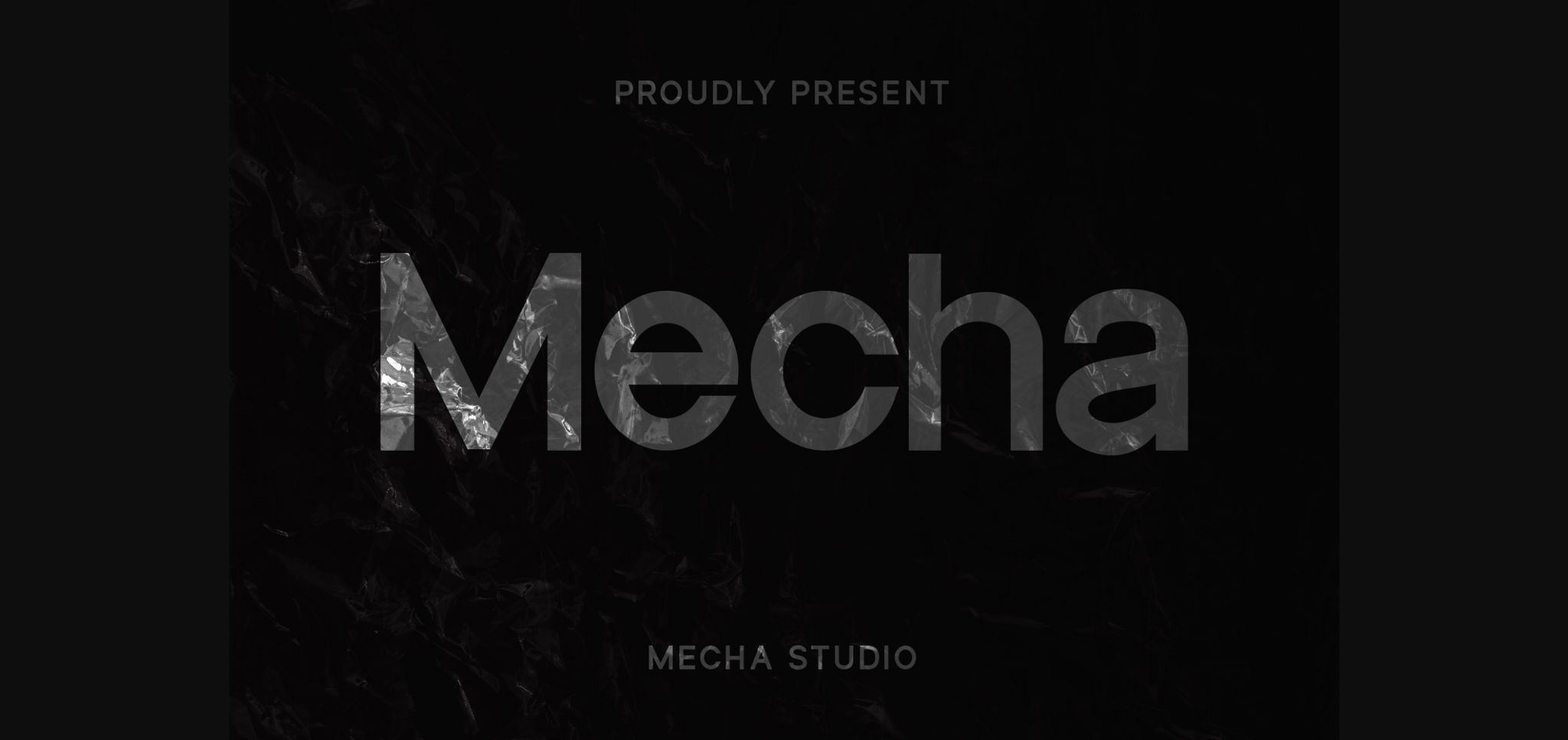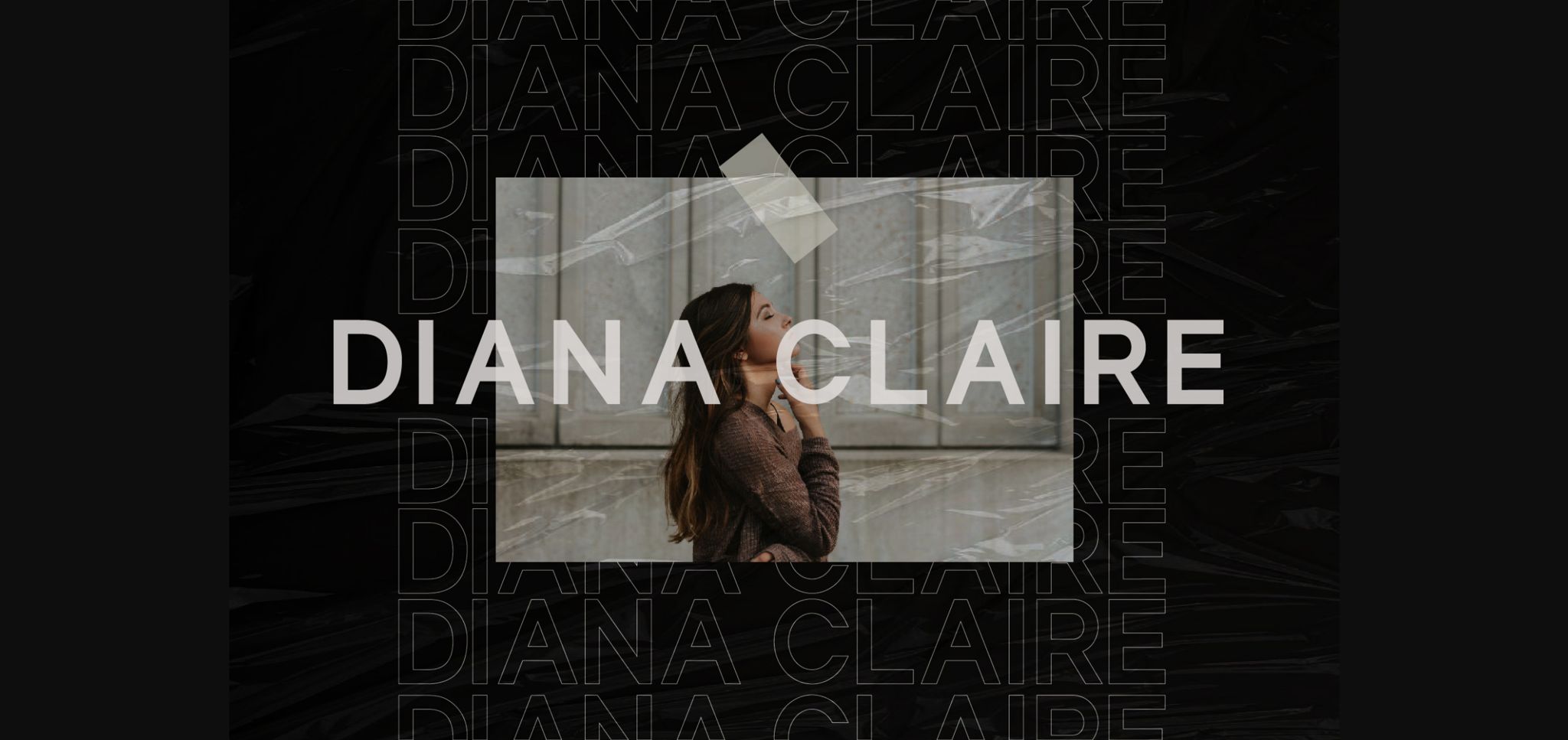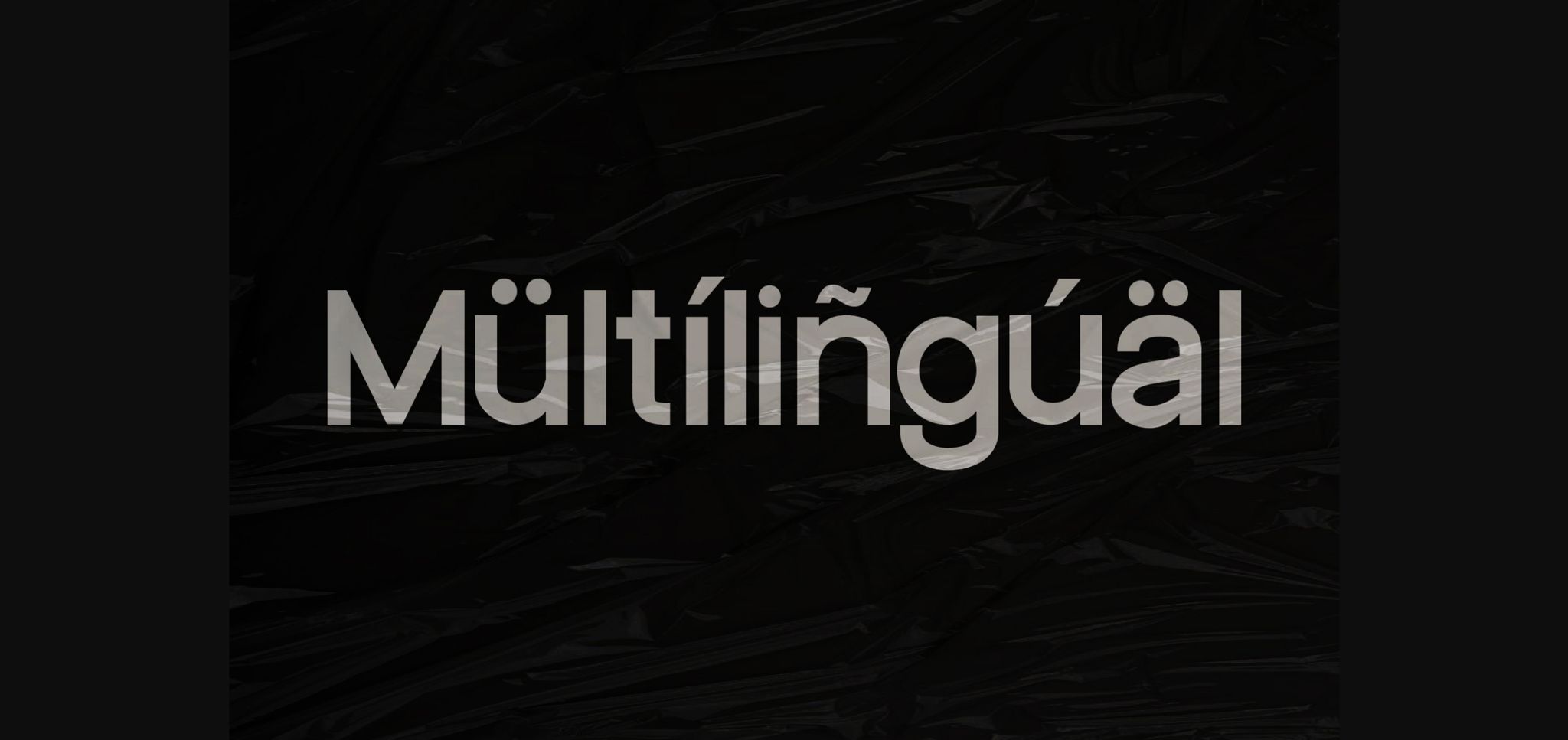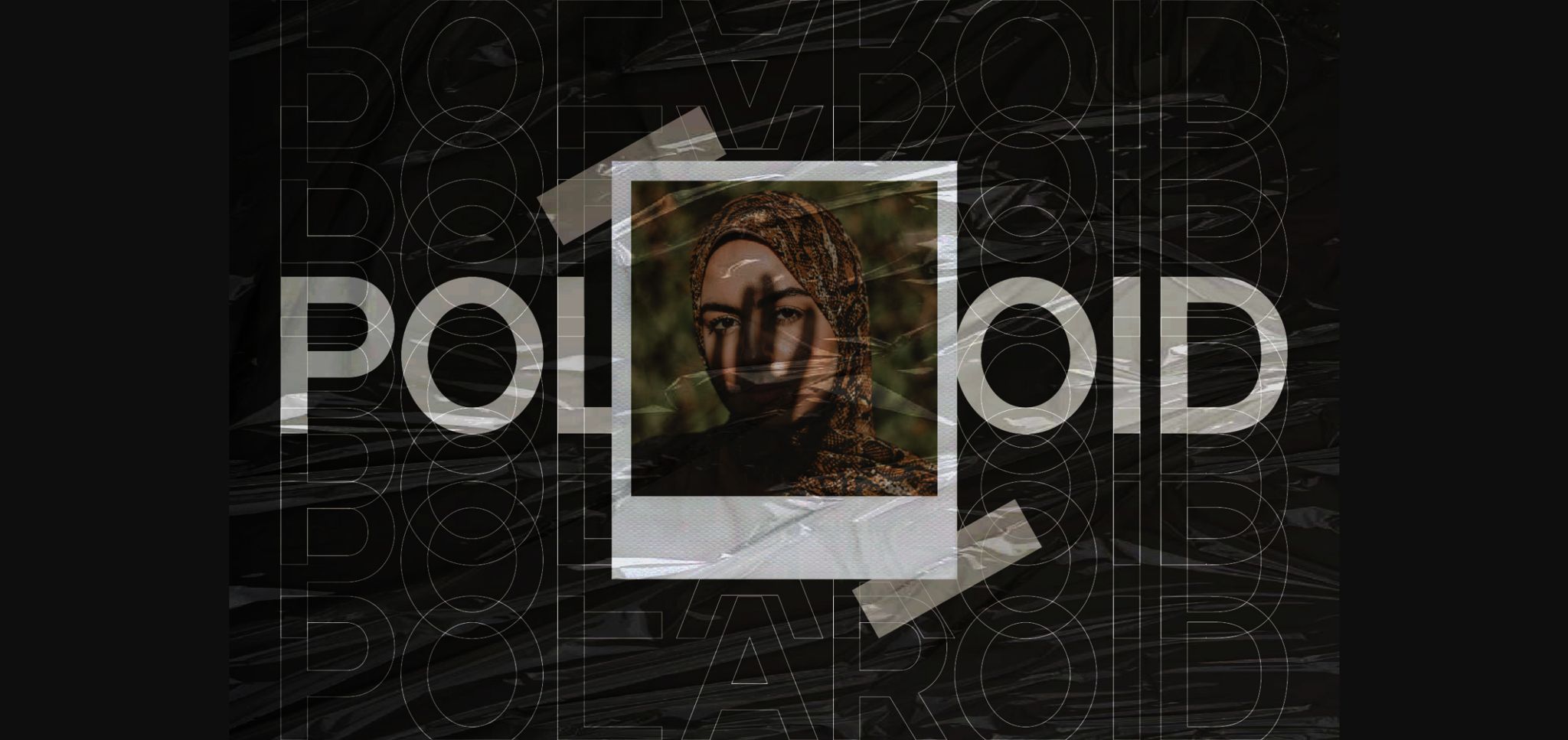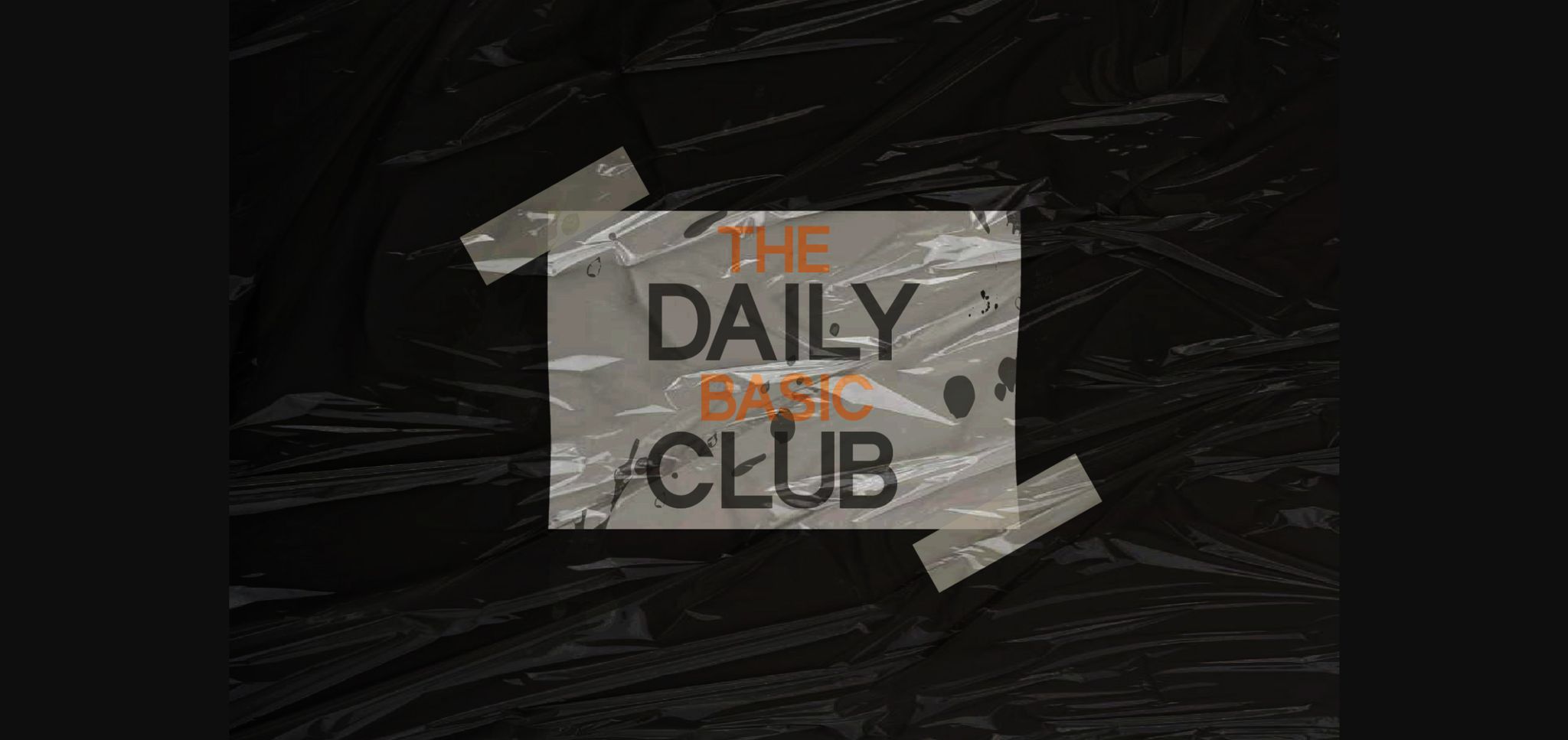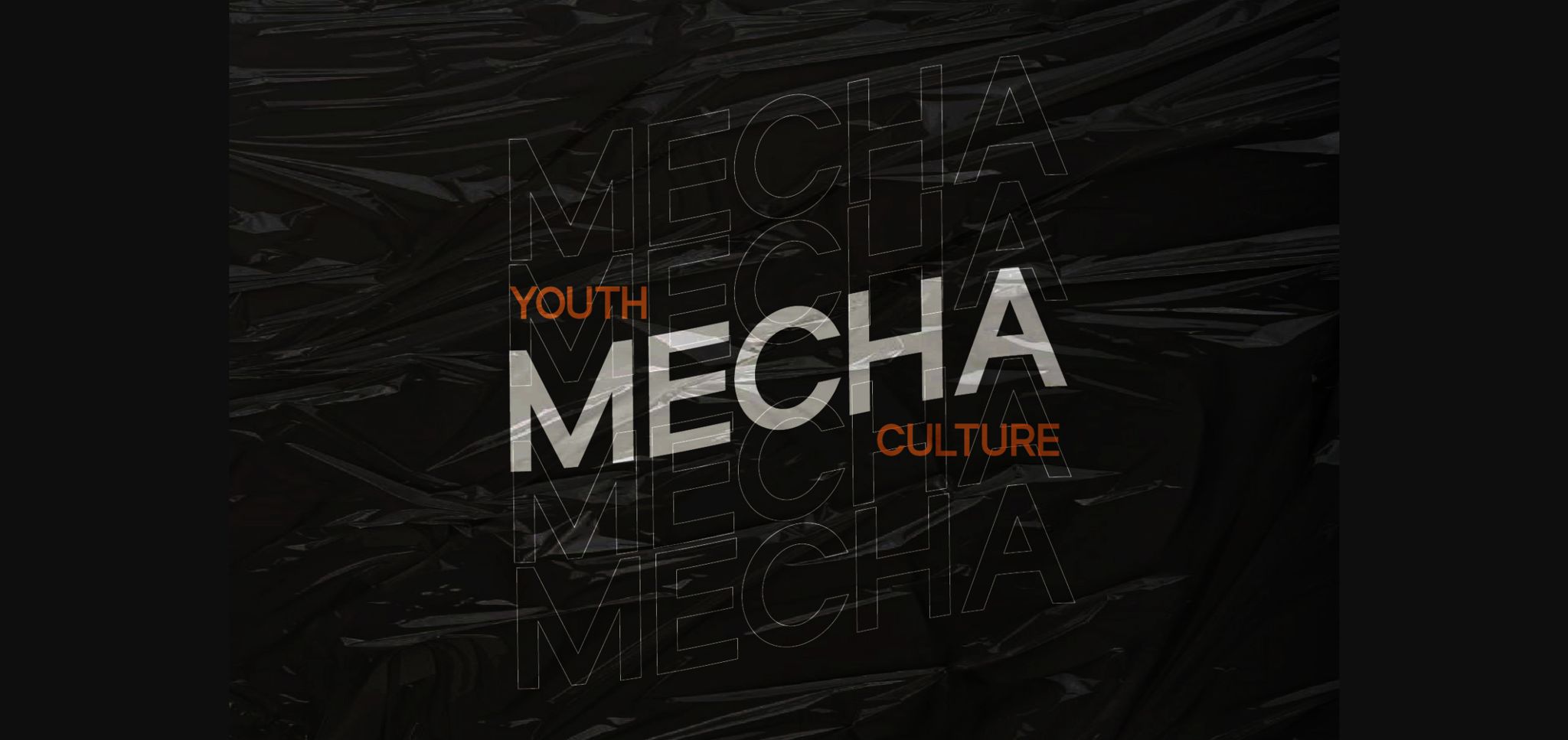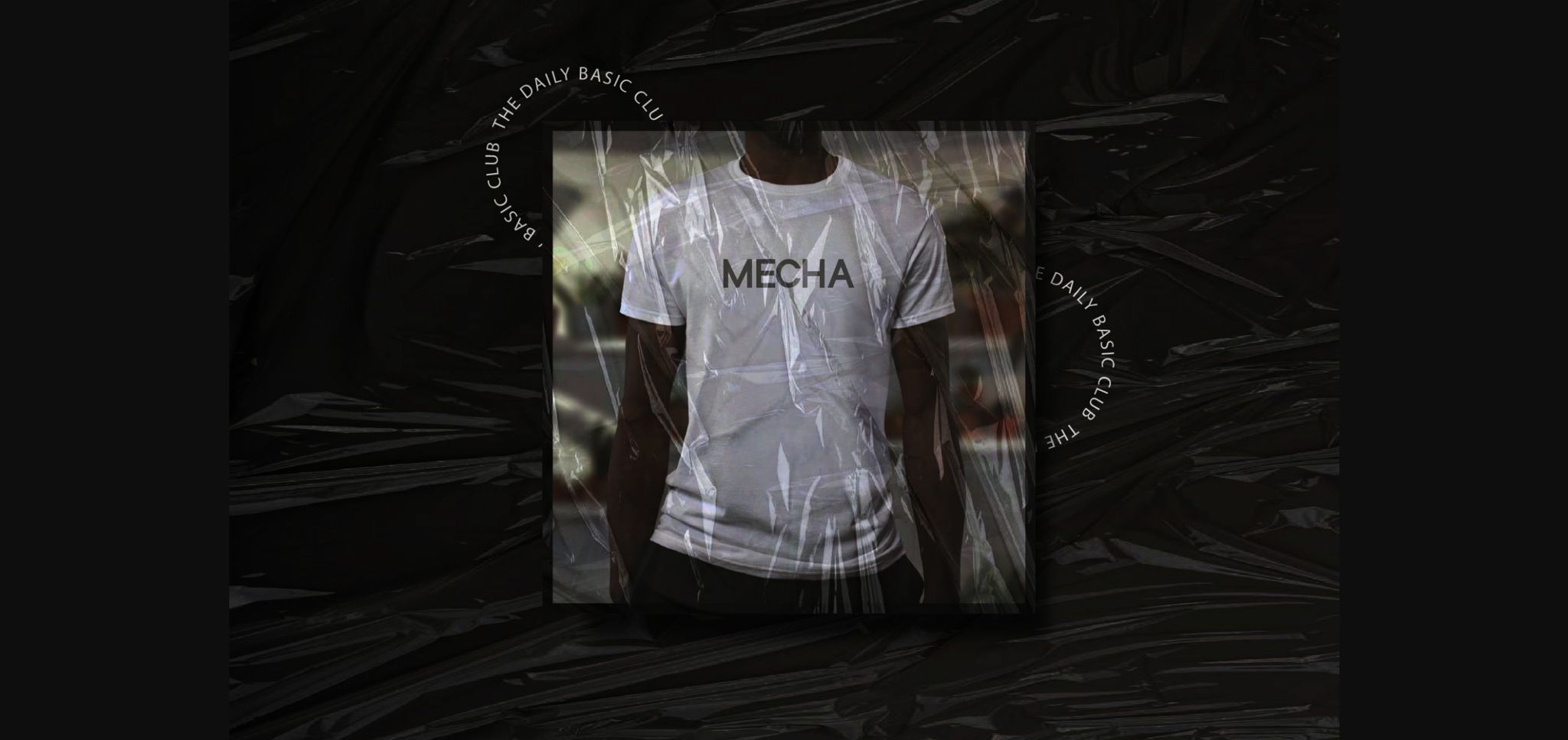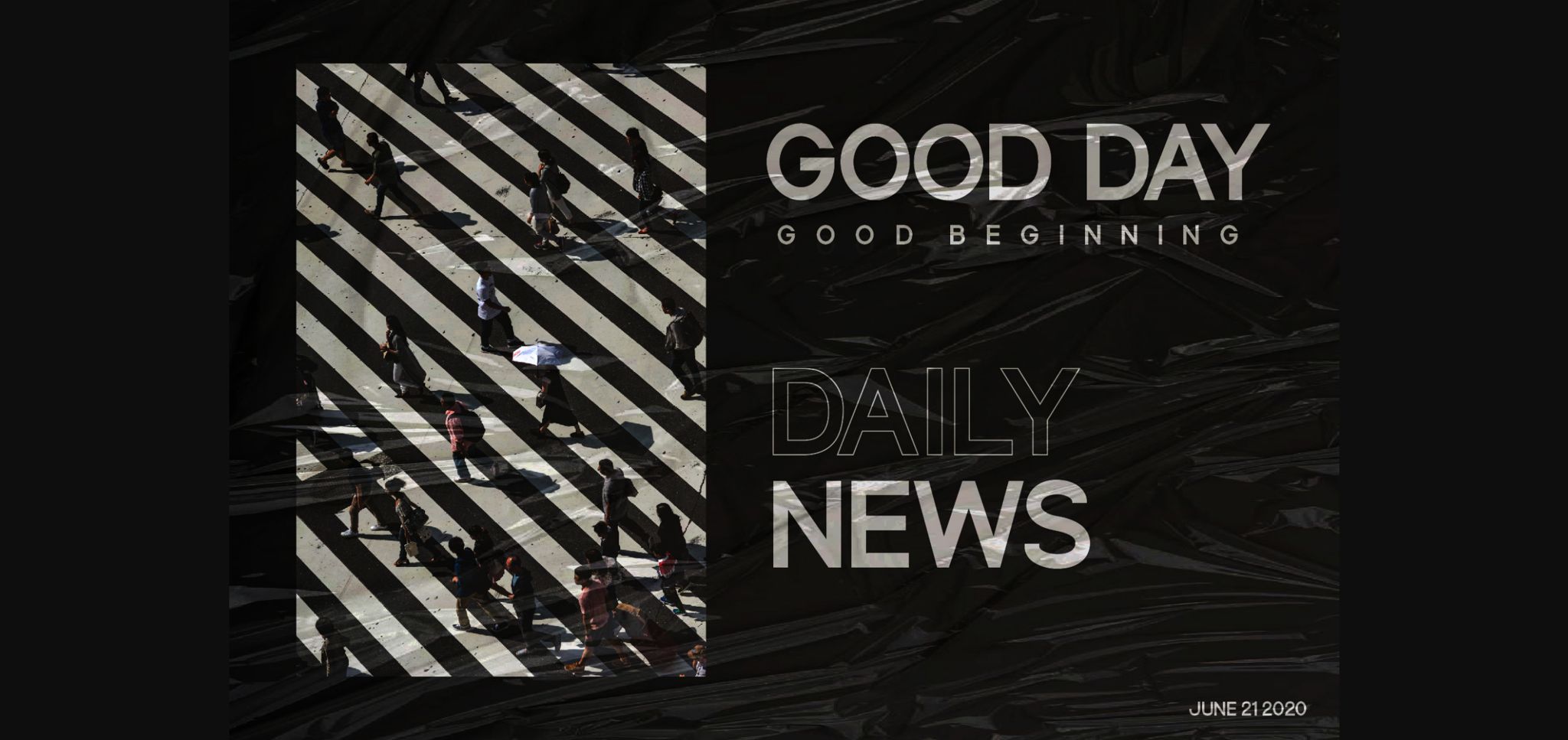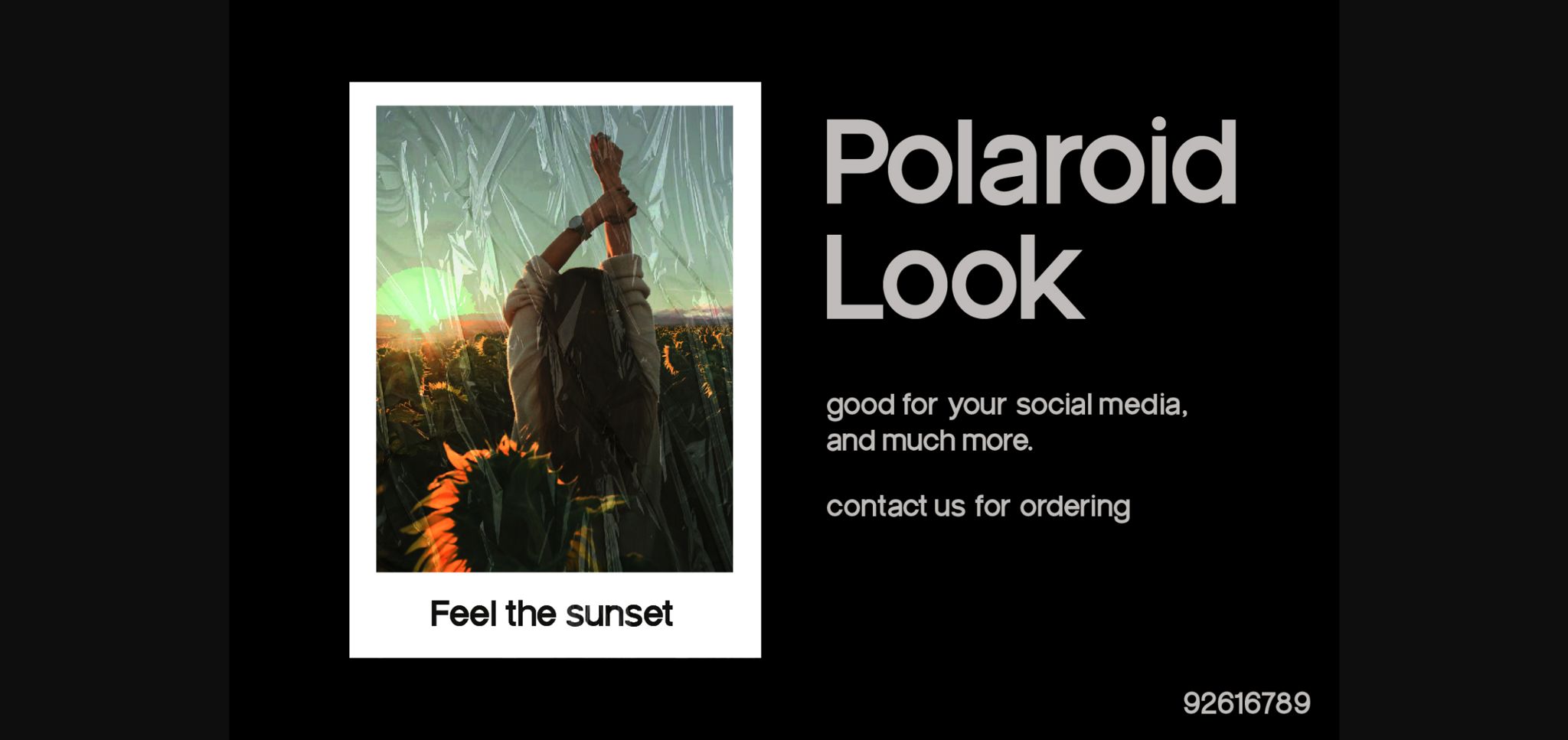
Mecha Font
About Mecha Font
Mecha presents itself as a sleek and refined sans serif font, characterized by its minimalistic and tidy design. With its versatility and clean lines, Mecha has the capacity to elevate a diverse range of projects and ensure they stand out with effortless sophistication.
The allure of Mecha lies in its simplicity and adaptability. Whether you’re crafting logos, designing headlines, or developing branding materials, this font’s minimalistic style adds a touch of modernity to your projects. Its clean lines and balanced proportions ensure clarity and readability, making it suitable for a wide variety of applications.
One of Mecha’s key strengths is its versatility across different projects and design aesthetics. Whether you’re working on digital interfaces, print publications, or marketing campaigns, Mecha seamlessly blends into various design contexts, maintaining consistency and coherence throughout your creative endeavors.
Moreover, Mecha’s neat sans serif design allows for creative flexibility and expression. Whether used for body text or as a headline font, Mecha brings a sense of refinement and elegance to your designs, helping them to stand out and leave a lasting impression.
Incorporating Mecha into your creative ideas is certain to elevate their aesthetic appeal and captivate your audience’s attention. Whether you’re a seasoned designer or an aspiring creator, Mecha offers a versatile and stylish solution for bringing your vision to life with confidence and flair.
In summary, Mecha is more than just a font; it’s a powerful design asset that empowers you to create visually stunning and impactful projects. With its minimal and neat sans serif design, Mecha adds a touch of modern sophistication to any design endeavor. Embrace Mecha and discover how it can enhance your creative ideas with effortless style and elegance.
With its sleek design and clean lines, Mecha effortlessly integrates into a wide range of projects, ensuring clarity and elegance. Incorporate Mecha into your designs and experience how it enhances their visual appeal with effortless sophistication. Whether you’re designing logos, crafting headlines, or developing branding materials, Mecha offers versatility and style that make your projects stand out.
Embrace Mecha as a valuable addition to your creative toolkit and discover how it brings a touch of modern sophistication to your designs, captivating your audience and leaving a lasting impression.